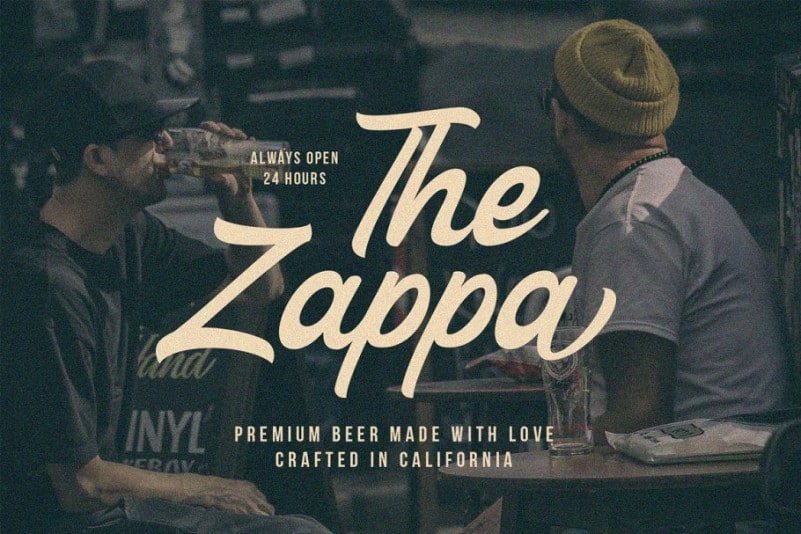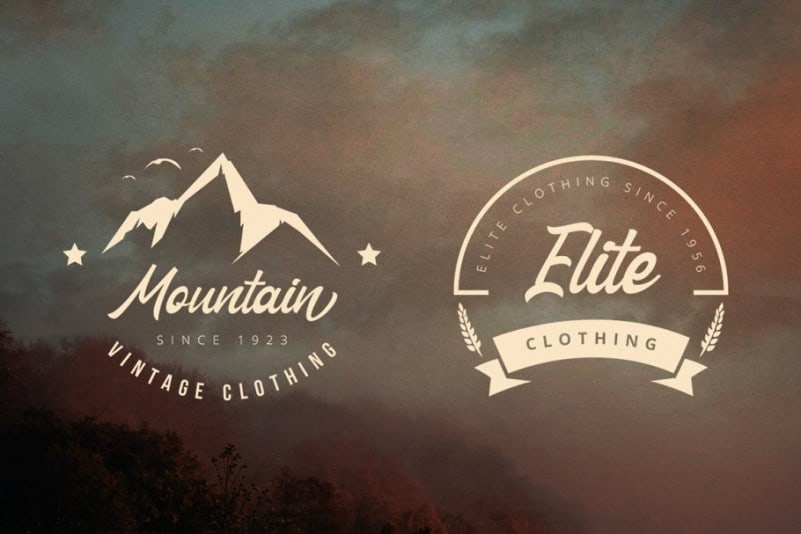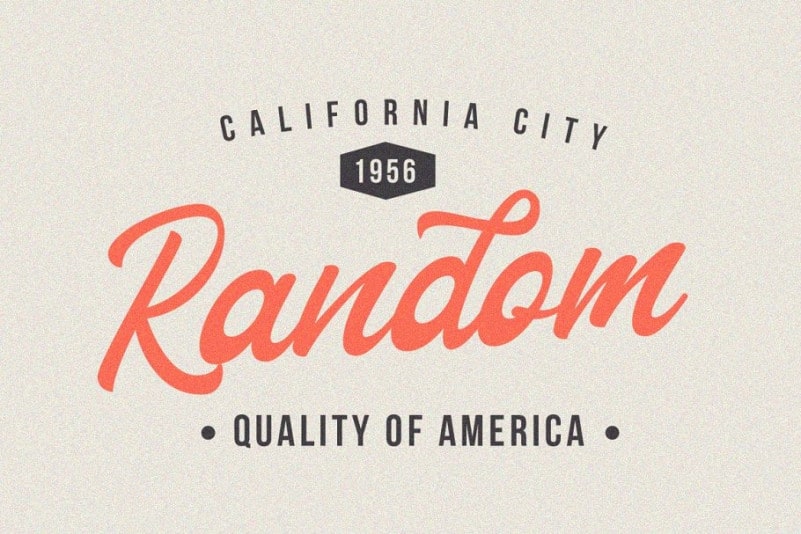
Nathan – Vintage Script Font
This is a vintage script font. This is a beautiful script inspired by handlettering works. It’s will give your design works more stylish and artistic. Introducing Nathan Font. Nathan Vintage Script was very inspired from modern vintage and retro style. All characters have an imperfect shape that gives a natural look in design. It easily cooperating together and perfect for creating the traditional style logos, labels, package design, lettering for t-shirts and much others.